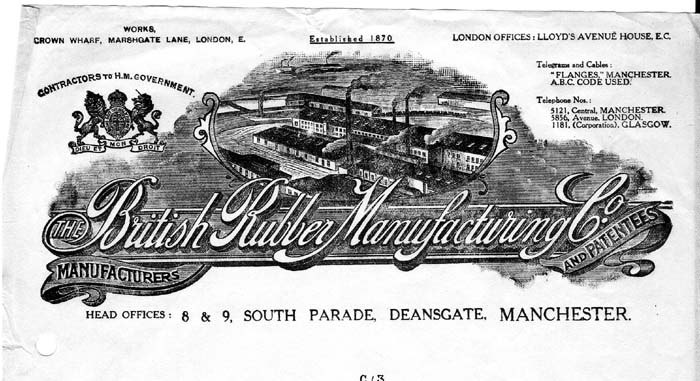
Nice Letterhead
Just got this on ebay for a couple of quid ,worth sharing, if anyone wants the higher res scan then e mail me cheers Terry
I guess that makes you the nice Letterhead. :)
I do like those old factory illustrations, and if you have a high res copy I'd like to add it to my collection.